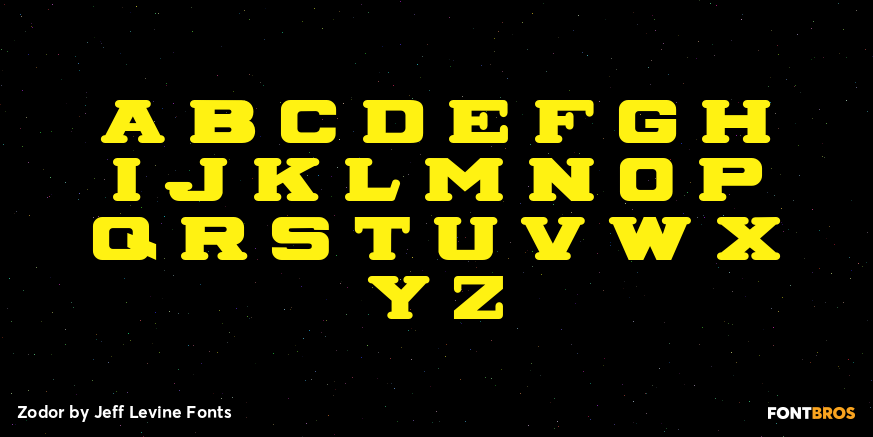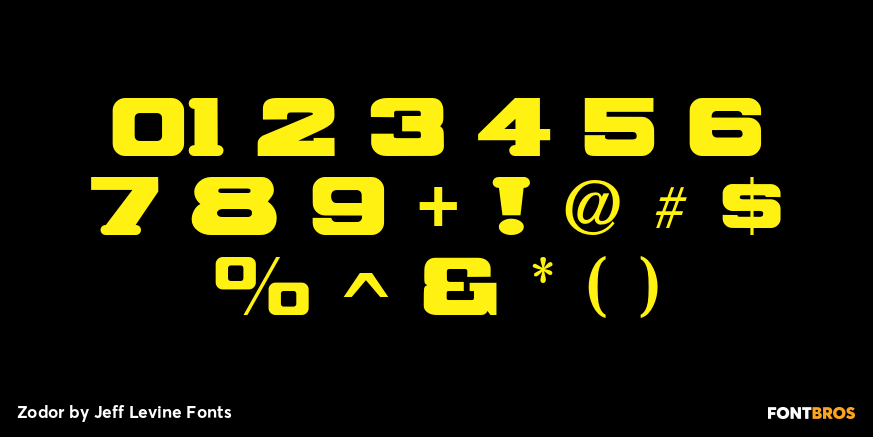
Zodor JNL is modeled from the packaging for injection-molded plastic letters used as a teaching toy for youngsters in the early 1960s. The hand-drawn alphabet on the sides of the package was quirky enough to merit being made into a digital font.